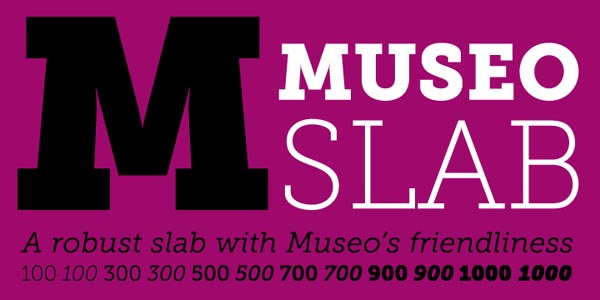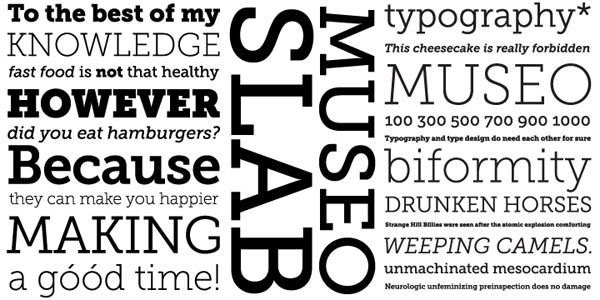
Museo Slab, a contemporary slab serif typeface from Jos Buivenga.
Museo Slab is a strong and robust slab serif typeface created by self-taught type designer Jos Buivenga in 2009. Its numerous weights include 6 fonts plus matching italics for each of them. The font matches very well with Museo Sans, which is a contemporary sans serif typeface. A strong geometric design with well-balanced distances and proportions characterize the appearance of this typeface. Thanks to the accurate kerning, the family works great also in long and small textes, it is always very readable. Both the thin and the thick weights are a great fit for headlines and titles.